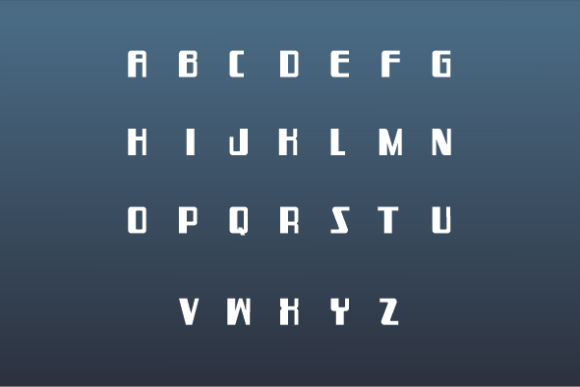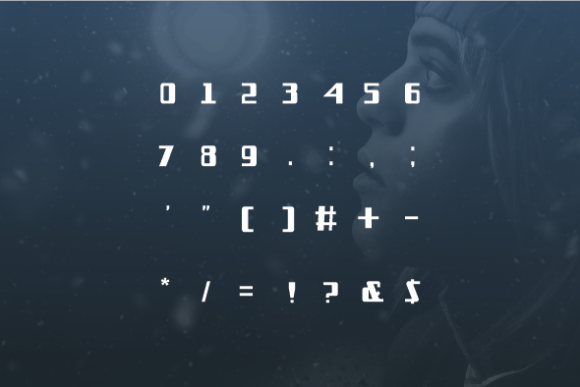
Introduction to Lastreng Font
Lastreng is a cool and casual display font.
No matter the topic, it will be an incredible asset to your fontsโ library, as it has the potential to elevate any project Fall in love with its incredibly versatile style and use it to create spectacular designs.
Key Features of Lastreng Font